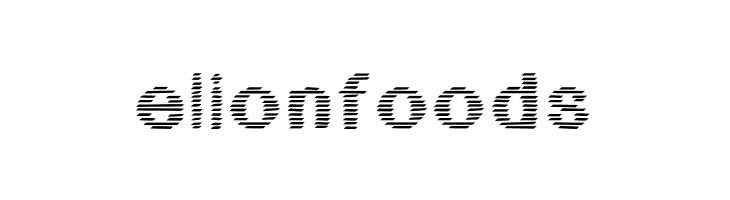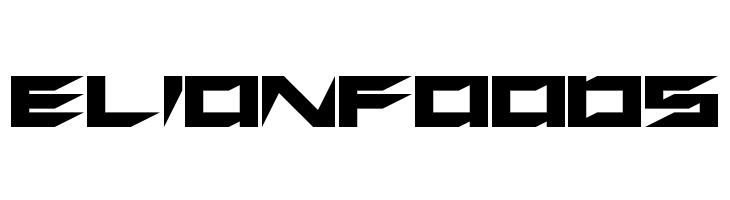
• Verumai
A playful, bold outline font with a hand-drawn appearance.
• JD Stripex
• Sitdown
A bold, geometric font with an industrial and modern feel.
• Toer
A display font using photographic portraits to form each character.
• Unstable_raw_release
• Fiker regular promo
A bold, geometric font with sharp, angular characters and a futuristic style.
• HutanLestari
A bold, geometric font with sharp, angular edges and a modern style.
• Xero's Retreat
• House Paint Shadow Regular
• Chips & Salsa
A playful, handwritten font with dynamic and informal strokes.